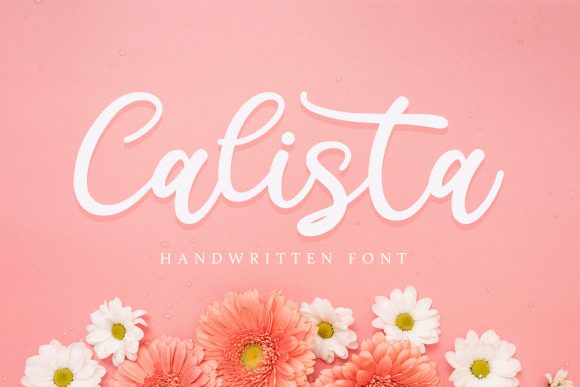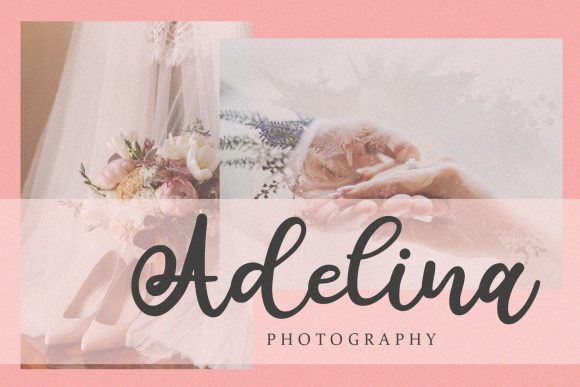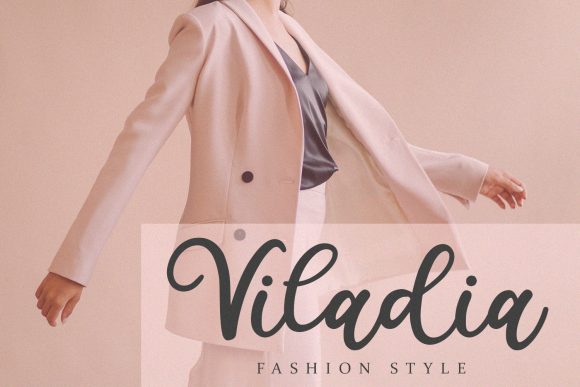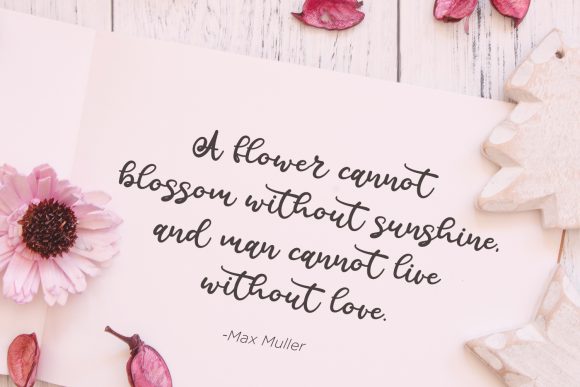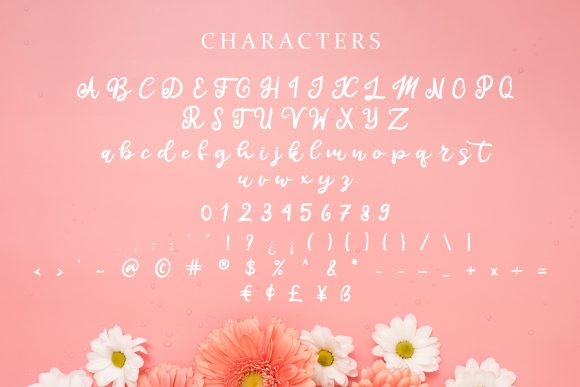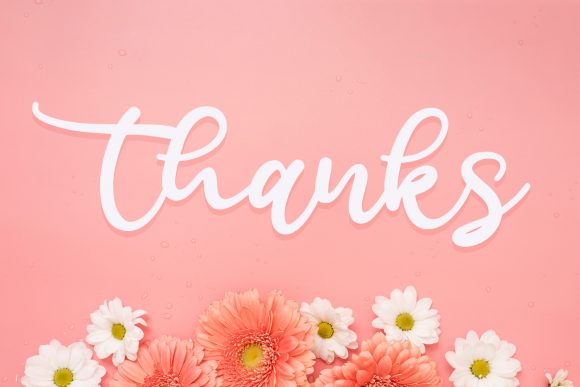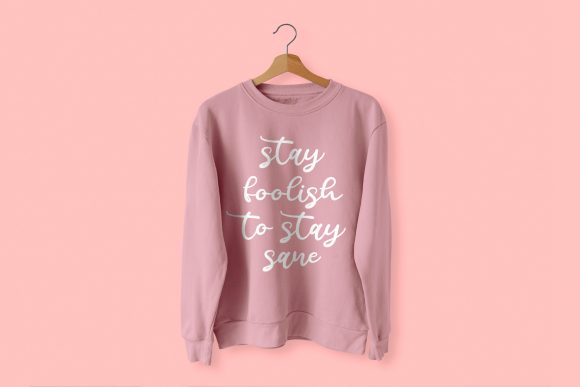
Calista Font
About Calista Font
Calista is a dainty and round lettered handwritten font. It looks stunning on wedding invitations, thank you cards, quotes, greeting cards, logos, business cards and every other design which needs a handwritten touch.